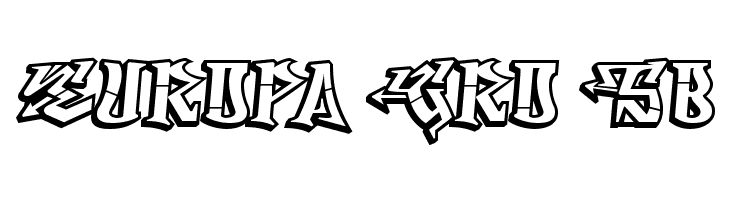
A modern, italic font with clean lines and a dynamic slant.
A modern, geometric font with clean lines and a structured appearance.
A bold, graffiti-inspired font with sharp angles and a three-dimensional look.
A bold, slab serif font with a strong, commanding presence.
A bold, modern typeface with clean, geometric lines and excellent readability.
A bold serif font with strong vertical lines and elegant curves.
A tall, narrow font with a modern, professional appearance.
A dynamic, brush-style font with expressive, hand-drawn strokes.
A playful, doodle-based decorative font with unique illustrations for each character.